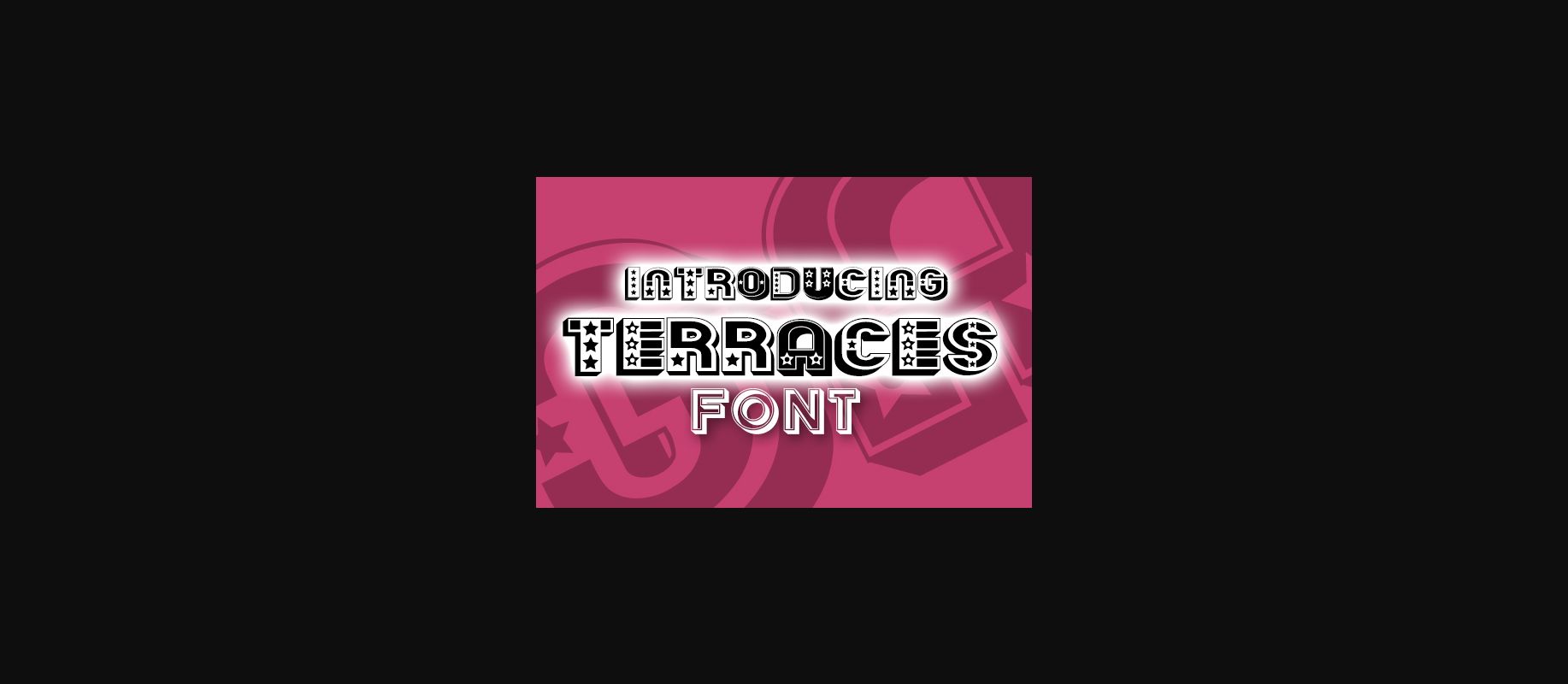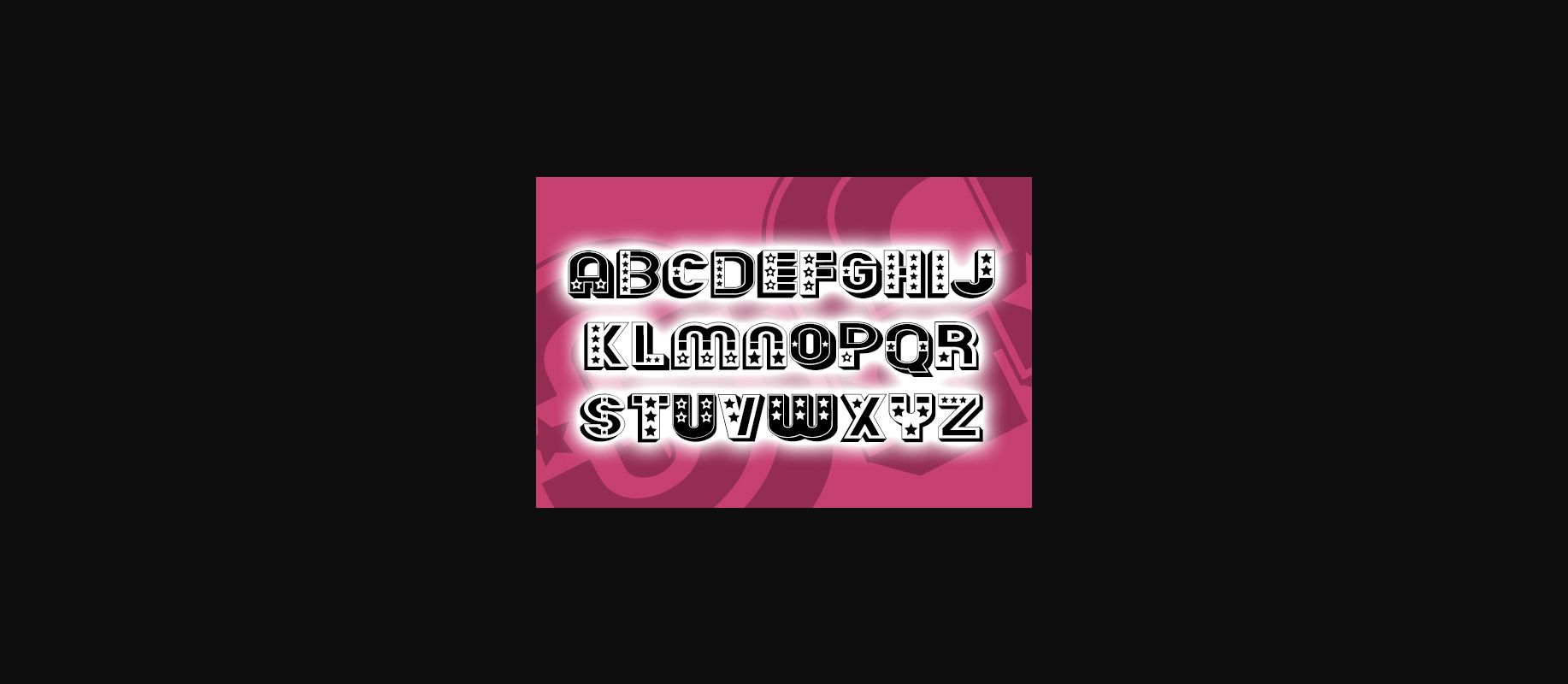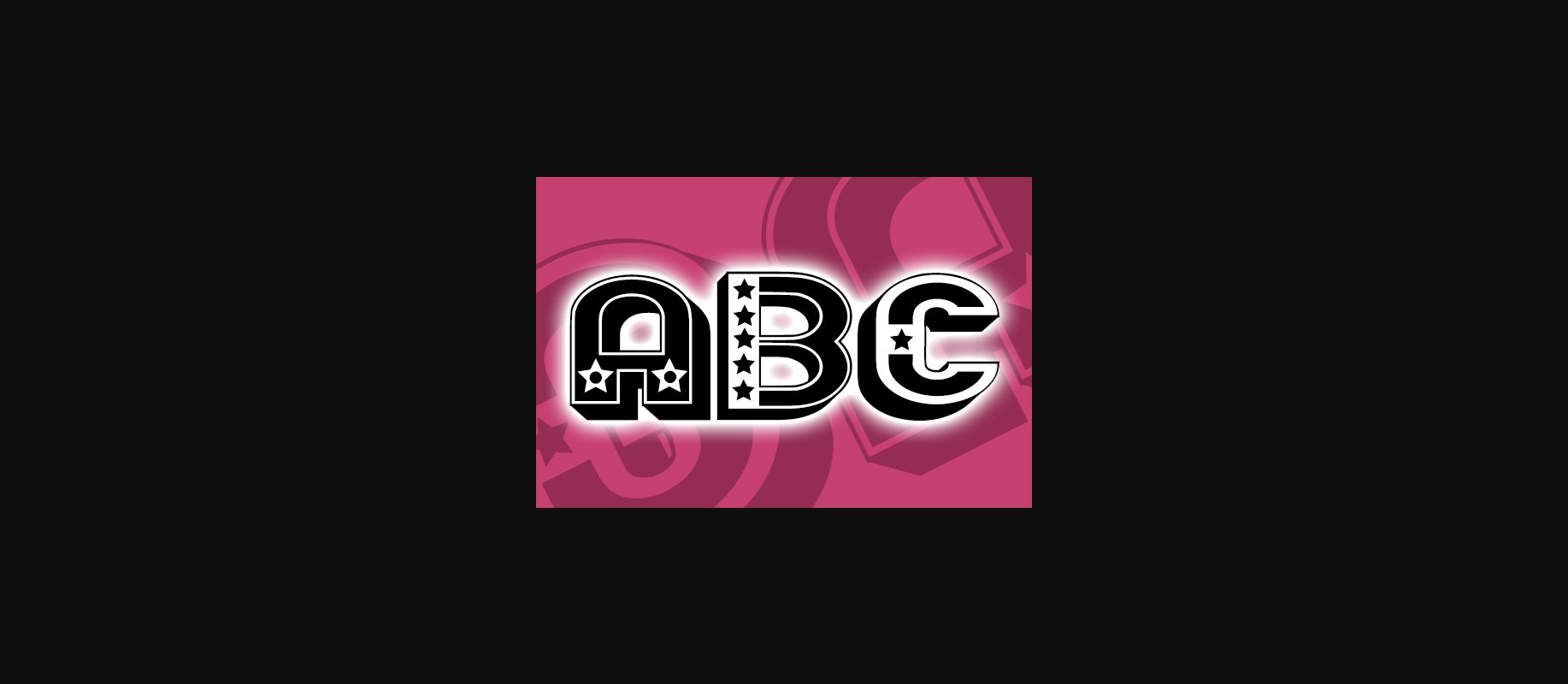
Terraces Font
About Terraces Font
Terraces is a cheerful and bold decorative font that will give your designs a unique touch. Have fun with this wonderful font and explore its endless possibilities.